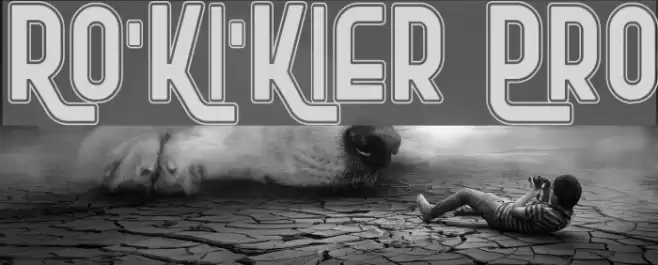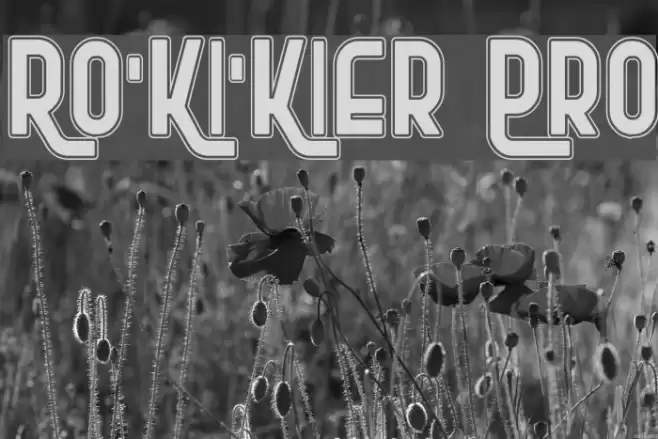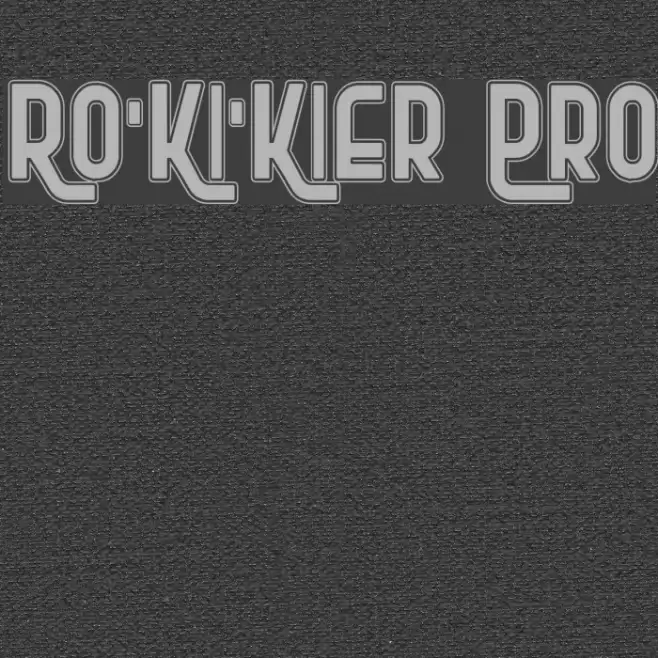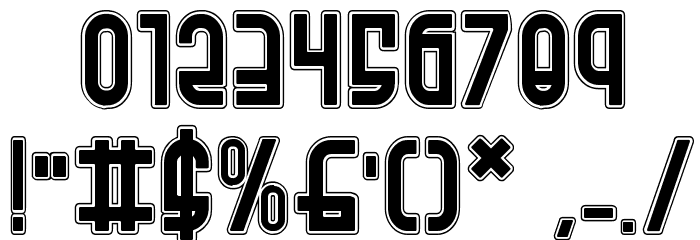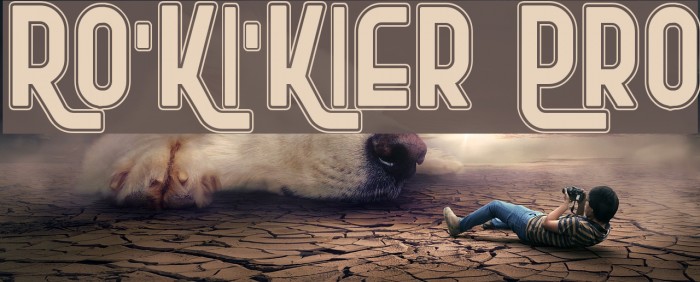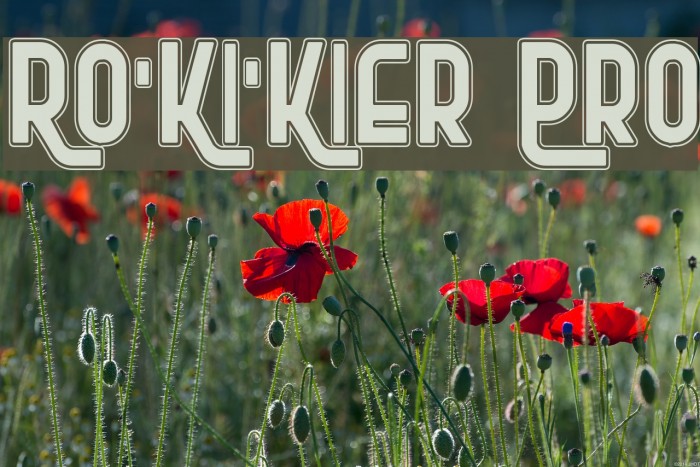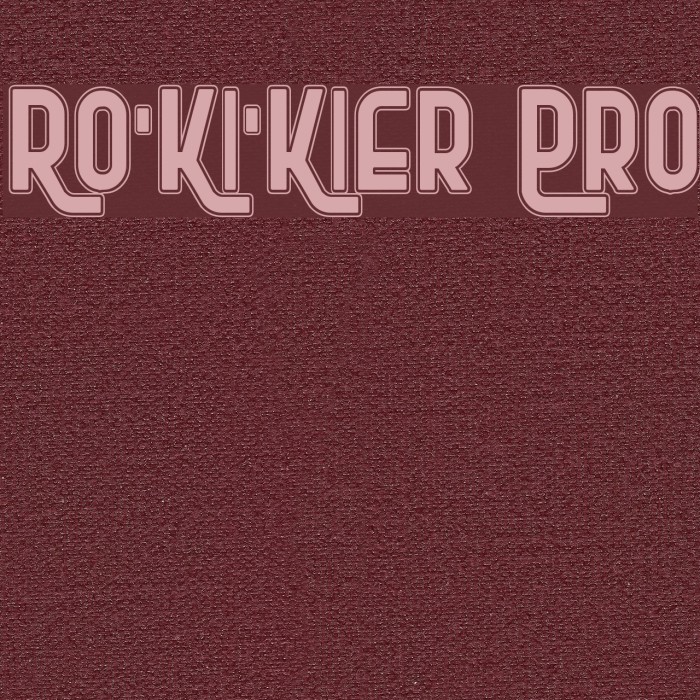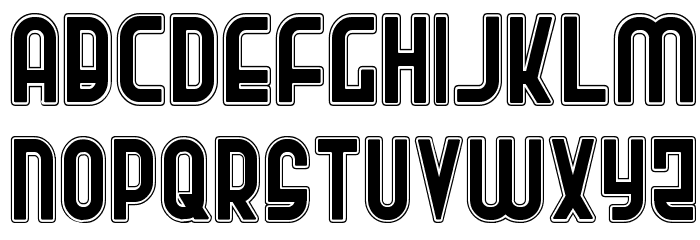
Ro'Ki'Kier Pro Font
Ro'Ki'Kier Pro Description
This font features a bold, modern style with a distinctive outline that gives it a three-dimensional appearance. The characters are uppercase and lowercase, with numerals and a variety of special symbols. The design is geometric, with clean lines and a consistent stroke width that creates a uniform look. The font's unique outline effect adds depth and makes it stand out, making it ideal for attention-grabbing designs. The spacing between characters is normal, ensuring readability while maintaining its striking visual impact.
A bold, modern font with a distinctive outlined, three-dimensional appearance from Uncategorized fonts.
- Proposed Projects: Ideal for posters, headlines, branding, and any project requiring a bold, eye-catching typeface.